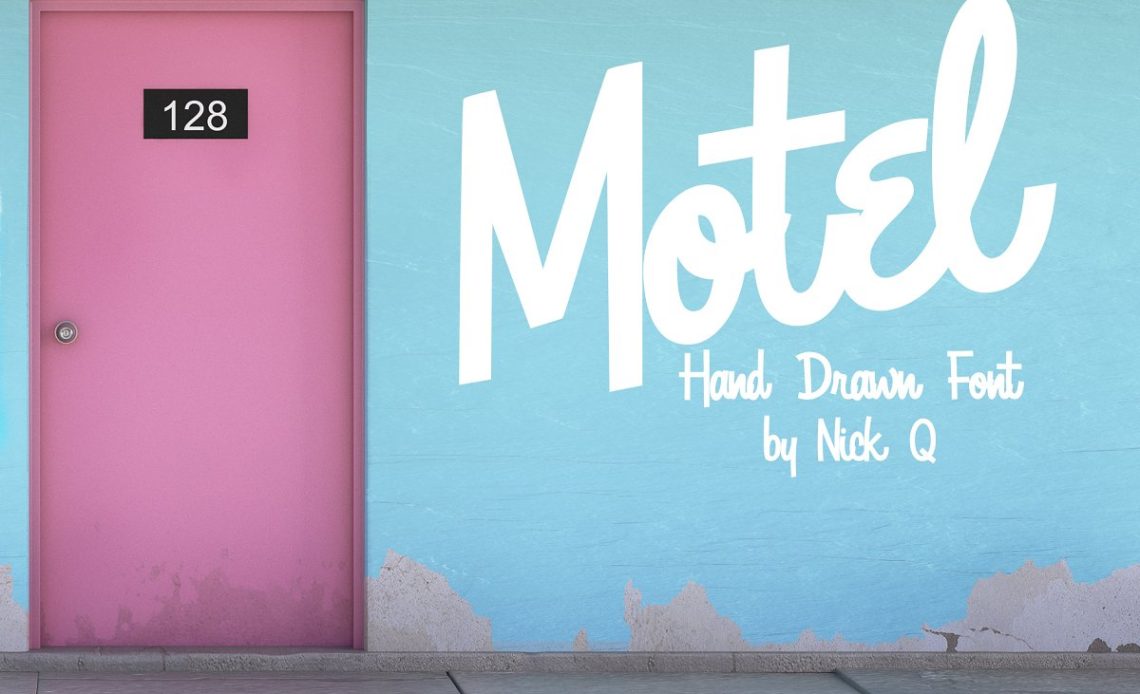
Introducing the Motel Hand Drawn Font, created by Nick Quintero, a one-of-a-kind font that will add a unique, hand-drawn touch to your projects. This font family is perfect for designers who want to create eye-catching posters, flyers, band merch, t-shirts, and more.
Each character in this font was hand-drawn in Illustrator, inspired by vintage motel and hotel signs. The result is a beautiful and authentic look that will make your designs stand out. This font is currently available at a reduced price while it's in beta, so it's the perfect time to add it to your collection.
With Motel Hand Drawn Font, you'll be able to get your results faster and with greater ease. It's the perfect tool for designers who need a unique and original font that can make their work stand out.
Please note that this font is still in beta, so only use it if you are familiar with kerning the letters manually. Nick is currently adjusting and adding pairs, and will be adding and updating with any fixes and requests. If you have any problems, suggestions, or questions, please don't hesitate to reach out.